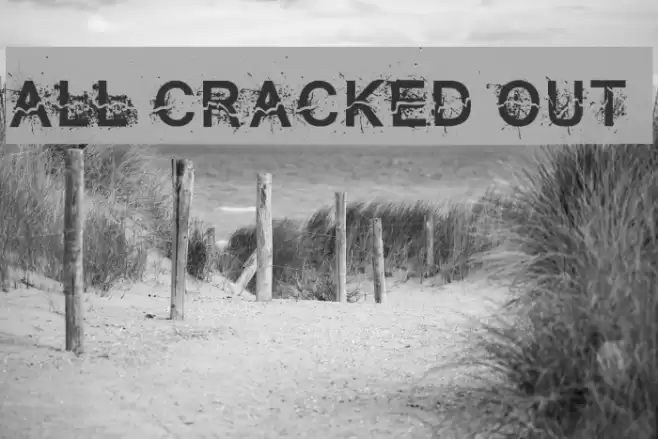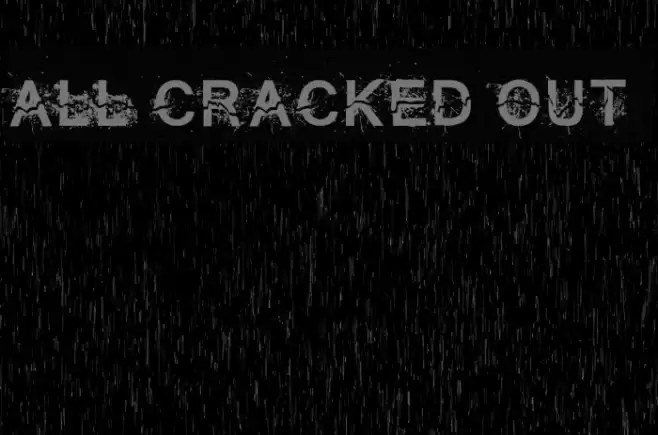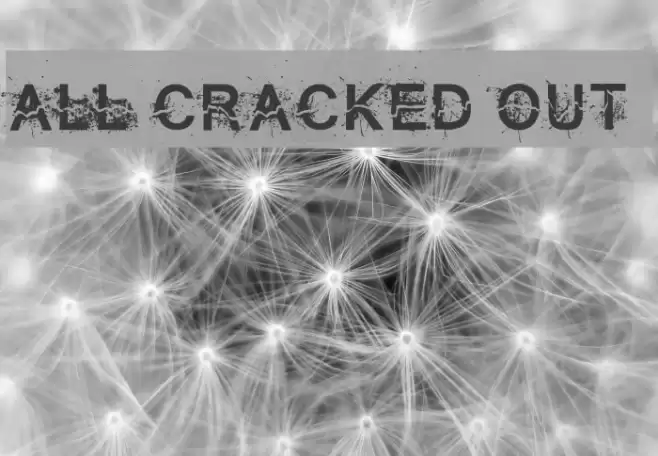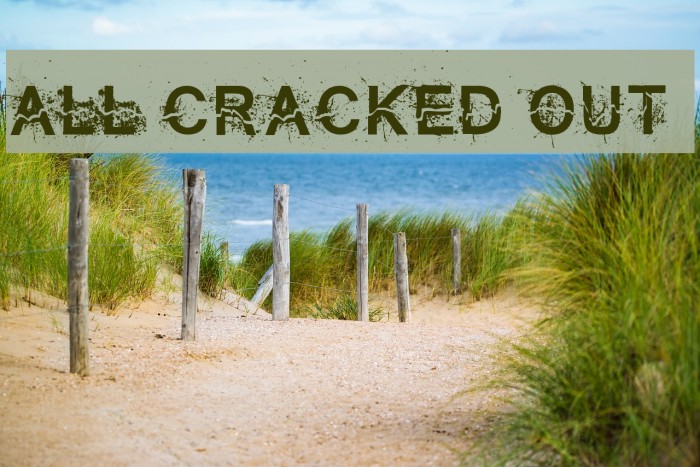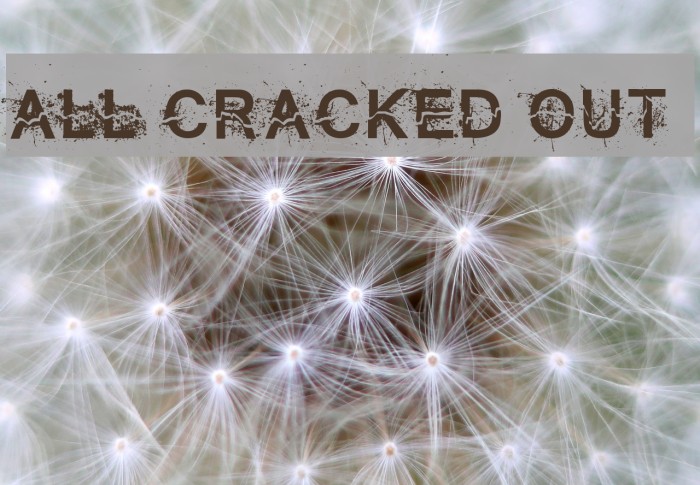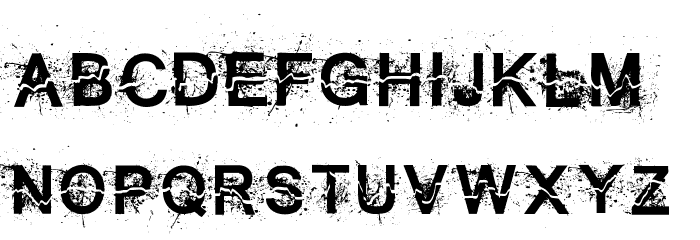
All Cracked Out Font
All Cracked Out Description
This font features a distressed and grungy style, characterized by its cracked and weathered appearance. The uppercase letters are bold and impactful, with a rough texture that gives them a rugged, worn-out look. The font's design is reminiscent of urban decay, making it ideal for projects that require a gritty, edgy aesthetic. The irregularities in the letterforms add a dynamic and chaotic feel, perfect for creating a sense of urgency or rebellion. This font is particularly suited for use in posters, album covers, or any design that aims to convey a sense of raw energy and authenticity.
A distressed, grungy font with a cracked, weathered appearance from Uncategorized fonts.
- Proposed Projects: Ideal for posters, album covers, and designs needing a gritty, edgy aesthetic.
- Overall Style: Grunge, Urban